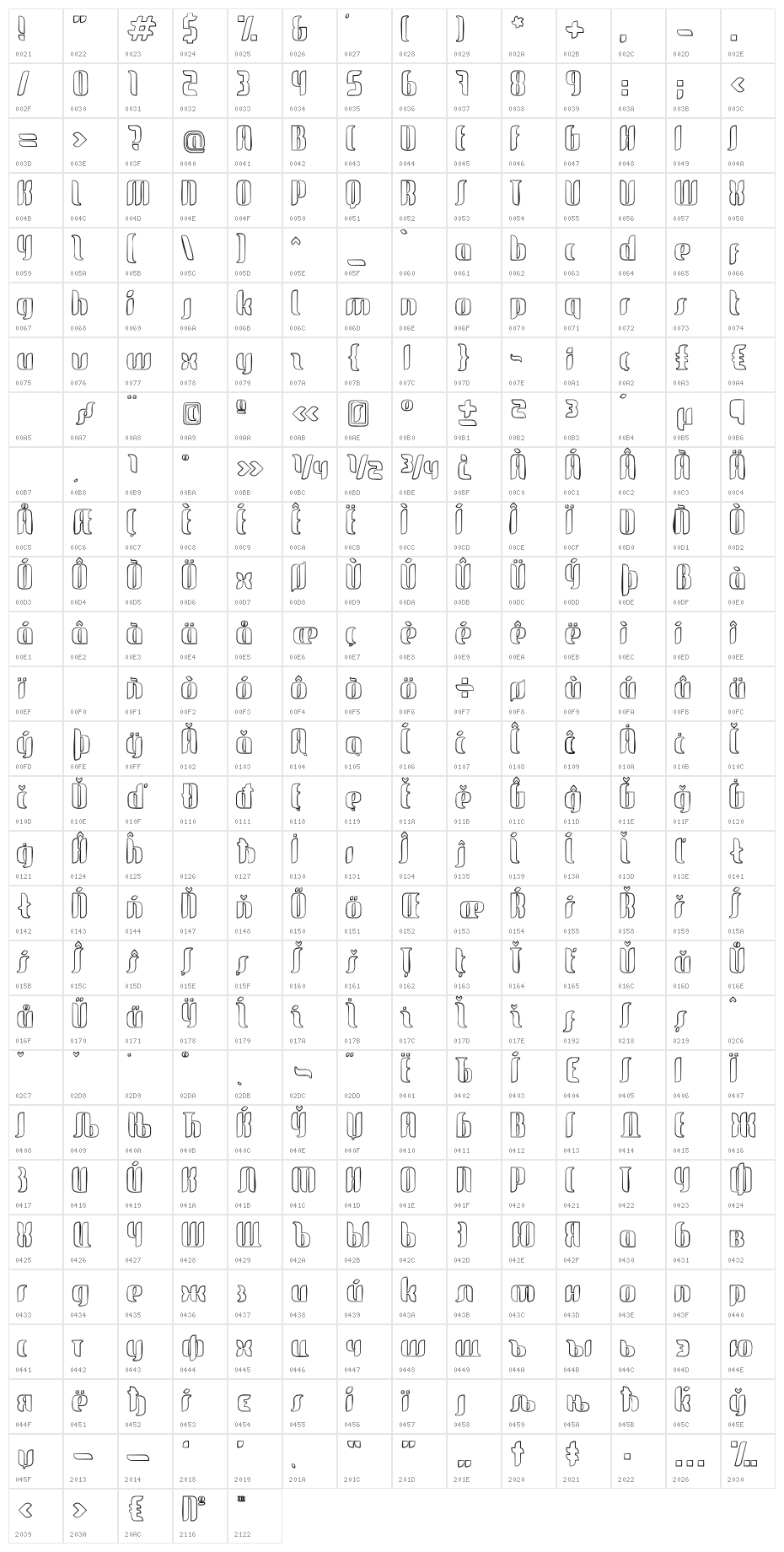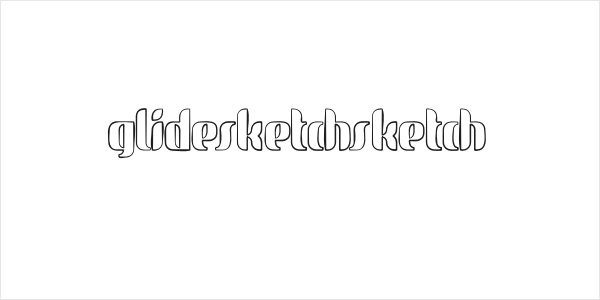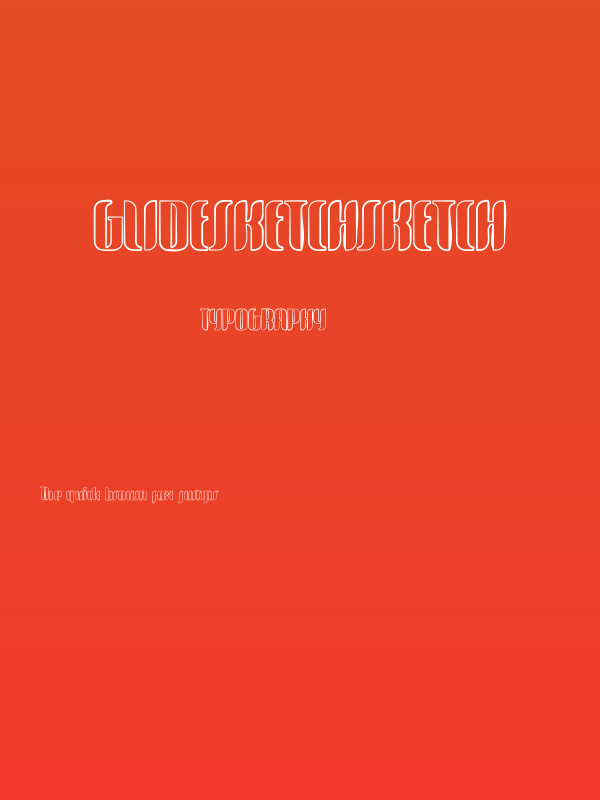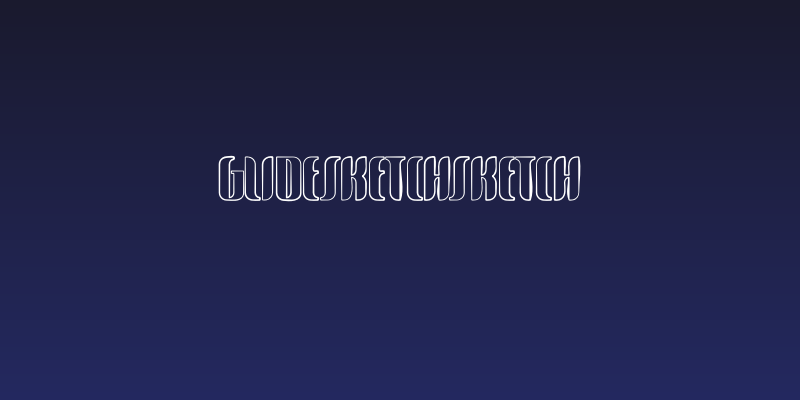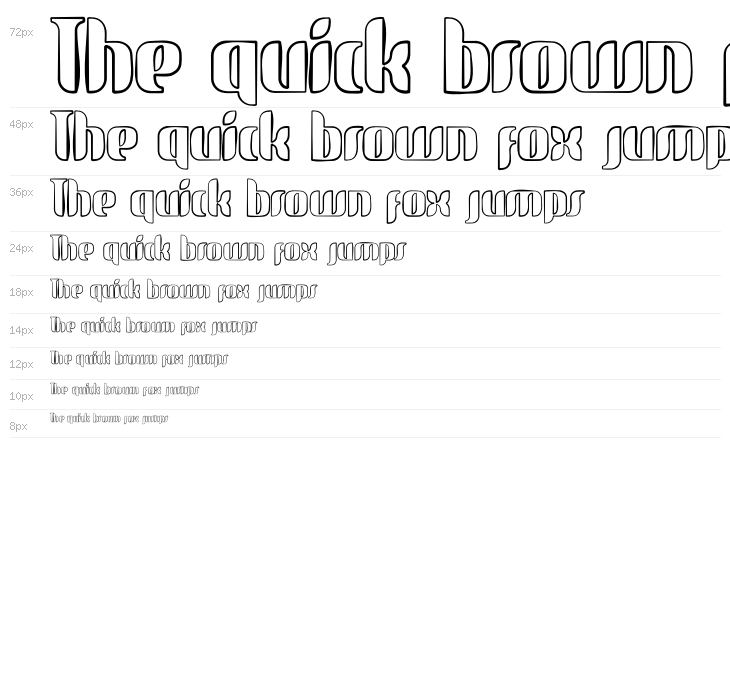
glidesketchsketch Font
glidesketchsketch Description
This font features a unique, modern design with a hollow, outlined style that gives it a futuristic and artistic appearance. The characters are bold and rounded with a consistent stroke width, creating a cohesive look across both uppercase and lowercase letters. The numbers and special characters follow the same design principles, ensuring uniformity. The font's distinct style makes it stand out, with a playful yet structured form that is ideal for creative projects. Its geometric shapes and clean lines make it suitable for contemporary design needs.
| Proposed Projects | Ideal for branding, posters, digital art, and any project requiring a modern, artistic touch. |